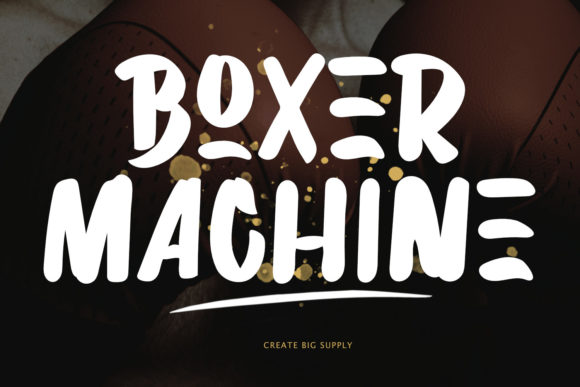
In a world where ordinary fonts blend into the background, Boxer Machine Font emerges as a bold and striking display font, ready to transform your creative visions into captivating realities. This font is not just a collection of letters; it's a gateway to a world of limitless possibilities, empowering you to make a statement that resonates with your audience.
Boxer Machine Font's bold and thick letters exude an aura of strength and confidence, making it the perfect choice for designs that demand attention. Unleash your creativity and use this font to design t-shirts that speak volumes, sportswear that ignites passion, logos that leave an indelible mark, advertisements that captivate, and clothing that exudes individuality.
With Boxer Machine Font, you'll find yourself immersed in a world of versatility, where the possibilities are endless. Its strong and impactful presence makes it ideal for book covers that demand attention, grabbing the reader's attention and inviting them into the world you've created. Its bold strokes and confident angles lend themselves perfectly to headlines, posters, and social media graphics that cut through the noise and leave a lasting impression.
Created by the talented team at Create Big Supply, Boxer Machine Font is a testament to their dedication to crafting fonts that inspire and empower. Their passion for typography shines through in every curve and line, ensuring that this font becomes an indispensable tool in your creative arsenal.
Don't settle for fonts that fade into obscurity. Embrace the boldness of Boxer Machine Font and watch your designs transform into masterpieces that command attention and leave a lasting impression.